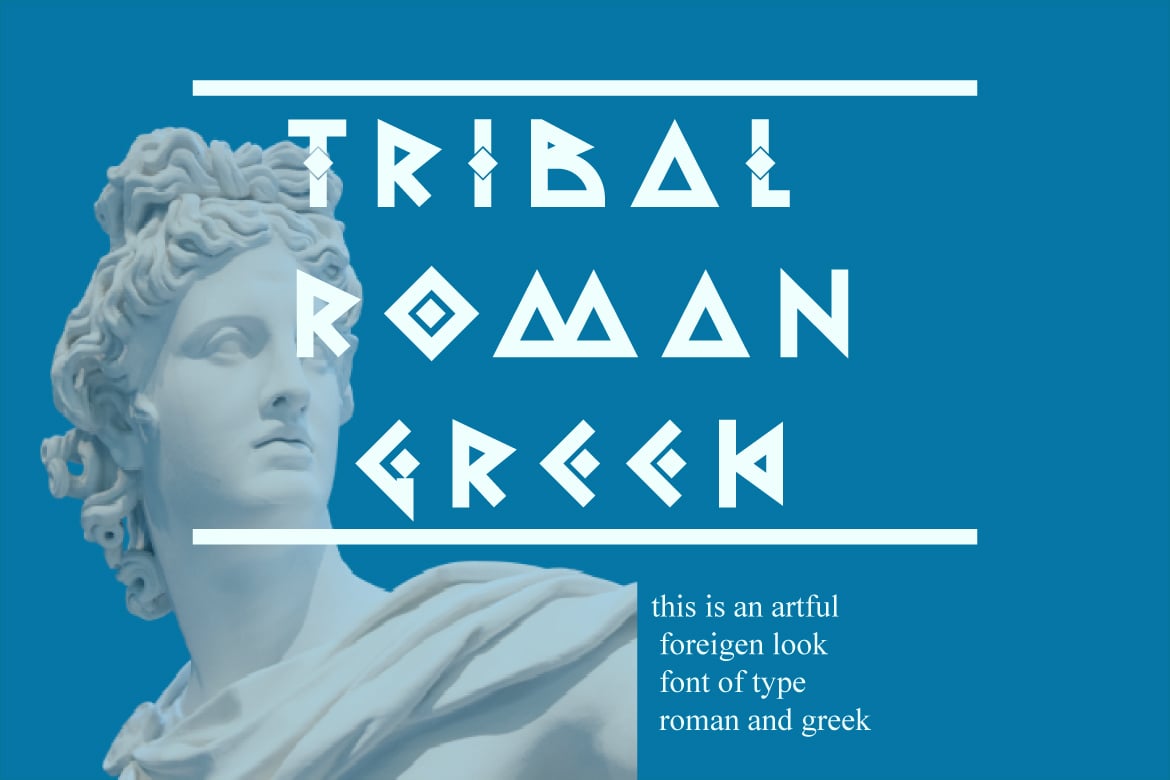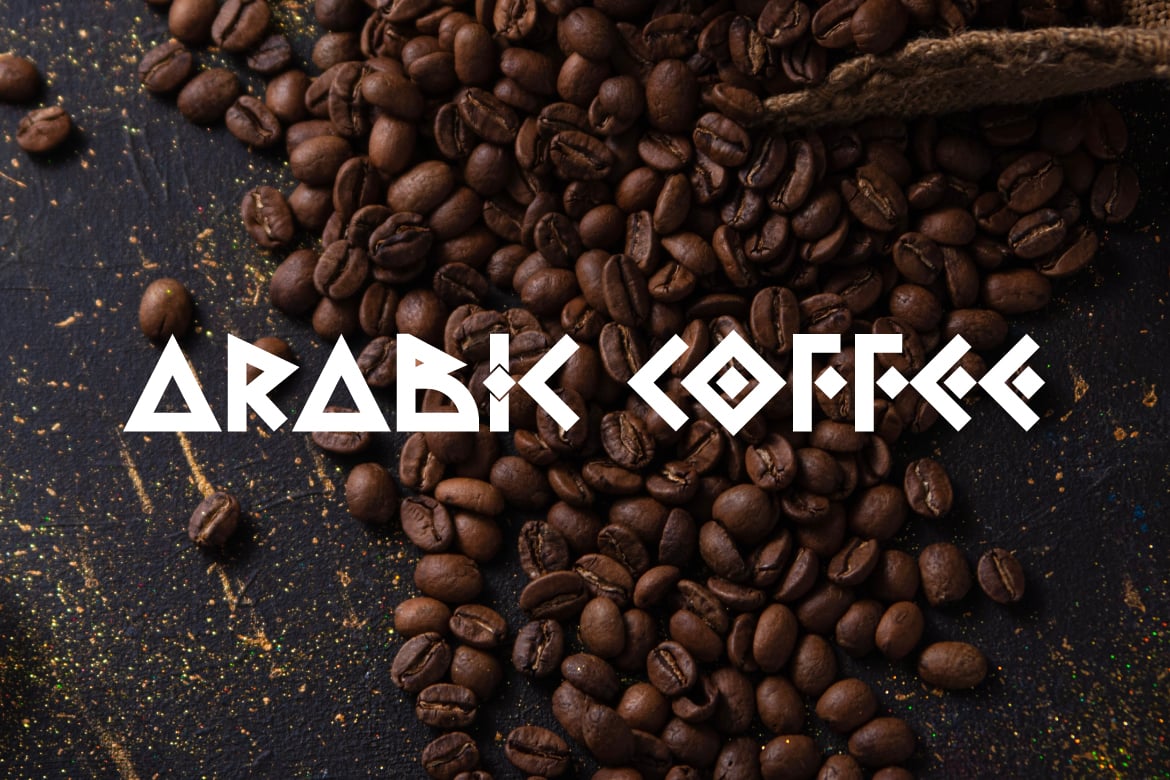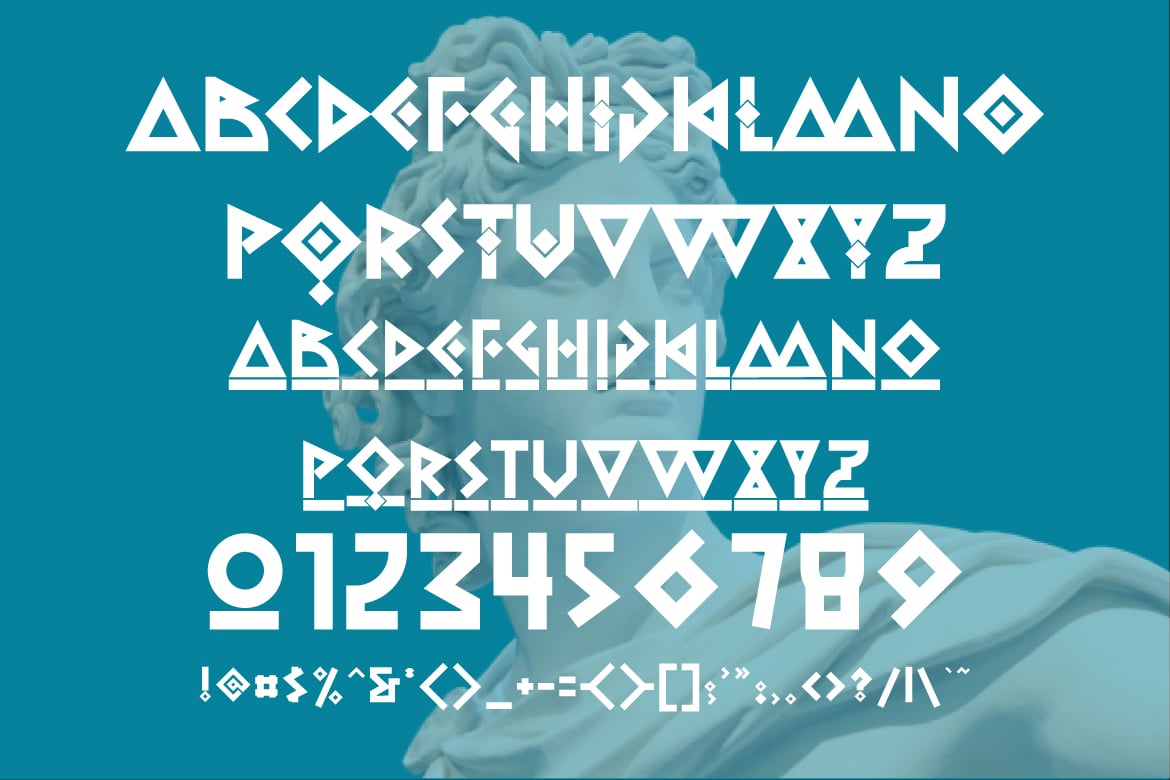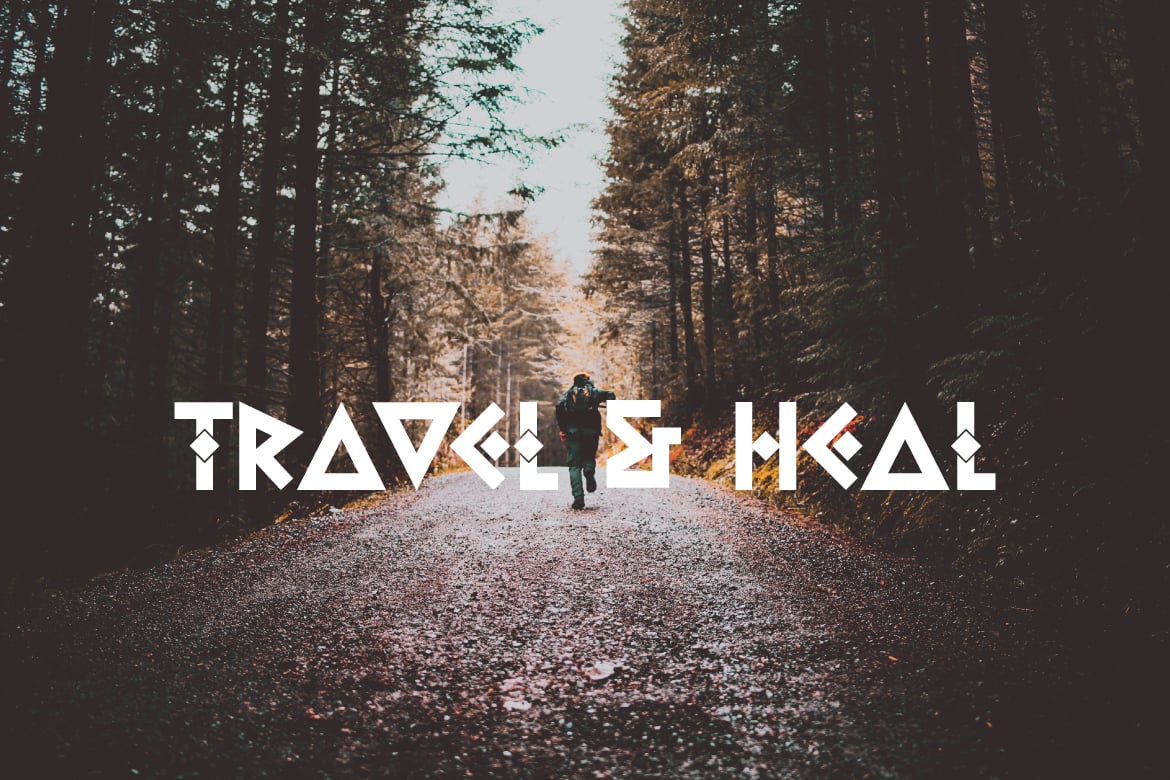
Tribal Romangreek – Decorative Font
Introducing **Tribal Romangreek **, a simple and decorative font.
So perfect for you who needs a typeface for logo designs, magazine, social media, brochure, and many more.